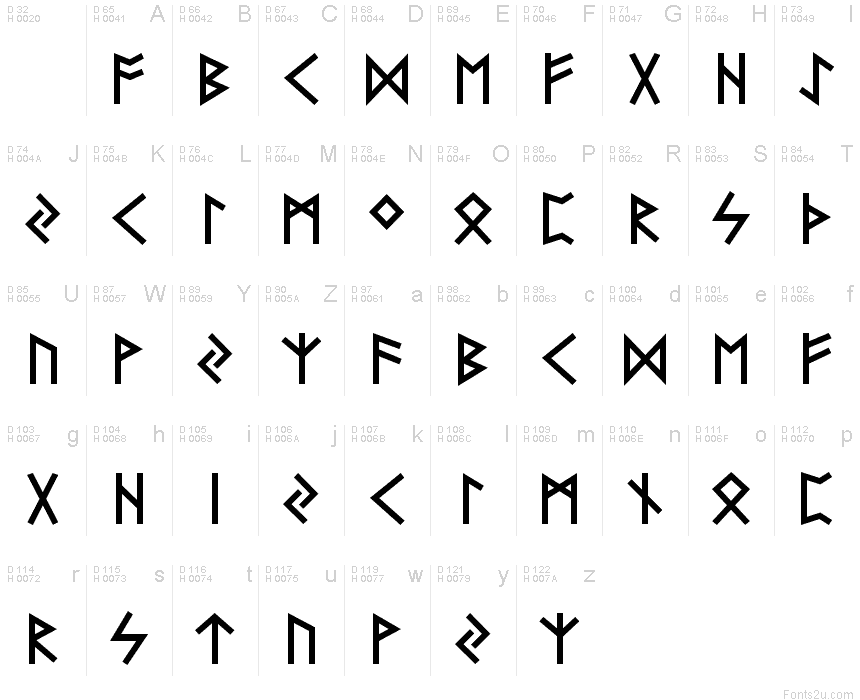
Futhark AOE
Futhark AOE font by Astigmatic One Eye is a free rune dingbat typeface that channels the sharp, carved energy of ancient stone inscriptions. Each mark is built from hard, straight strokes that feel like they’ve been cut with a blade, giving your layouts a stark, ritual-like presence. The spacing is tight and upright, so lines of symbols stack together like a row of standing stones, bold and unmistakable even at small sizes.
Using Futhark AOE, you can instantly conjure a Norse or arcane mood for fantasy book covers, RPG rulebooks, game UI elements, posters, album art, and themed event graphics. This free font works beautifully for chapter openers, sigils, or section dividers rather than long text blocks. Pair it with a clean geometric sans in a lighter weight to translate titles or body copy, letting the runes handle the mystery while the companion type keeps everything readable.